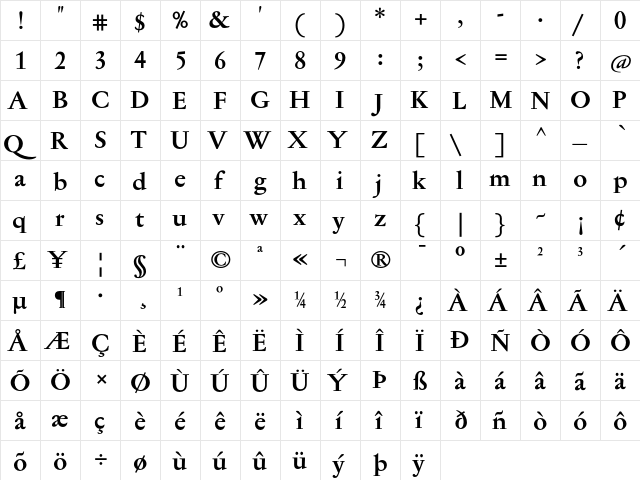
Jannon Text Bold
| Foundry | Frantisek Storm, stormtype.com |
Design Context for Jannon Text Typeface
Jannon Text is a composed and adaptable typeface that performs quietly and consistently across a wide range of design contexts. The heavy weight commands attention and anchors typographic hierarchies.